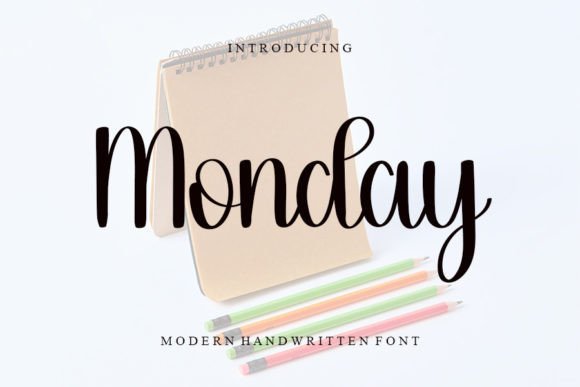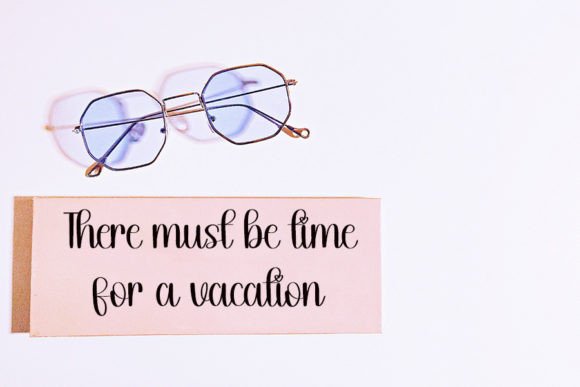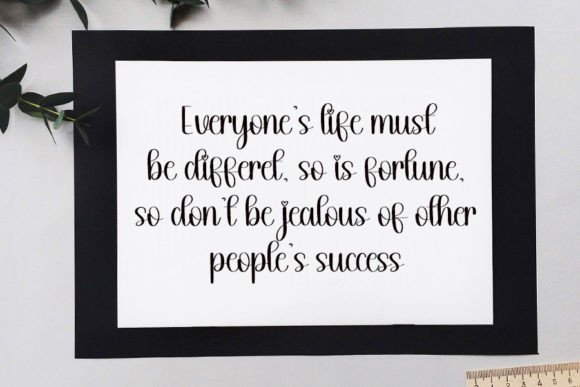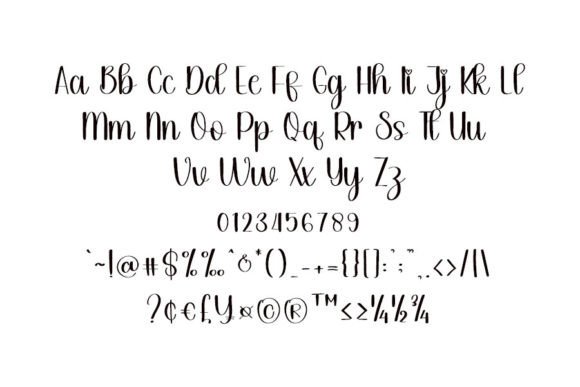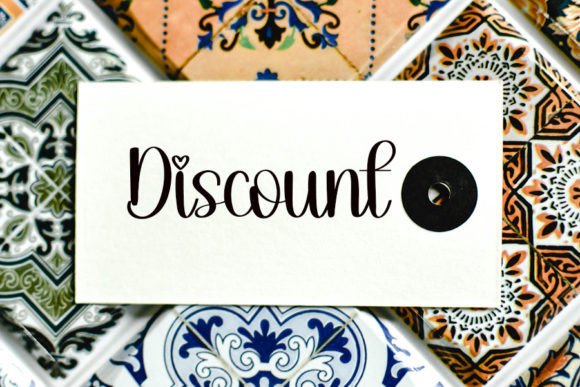
Monday
About Monday
Monday is a beautiful and flowing handwritten font, designed with a lovely brush pen. It maintains its classy calligraphic influences while feeling contemporary and fresh. Fall in love with it and bring your projects to the highest levels!